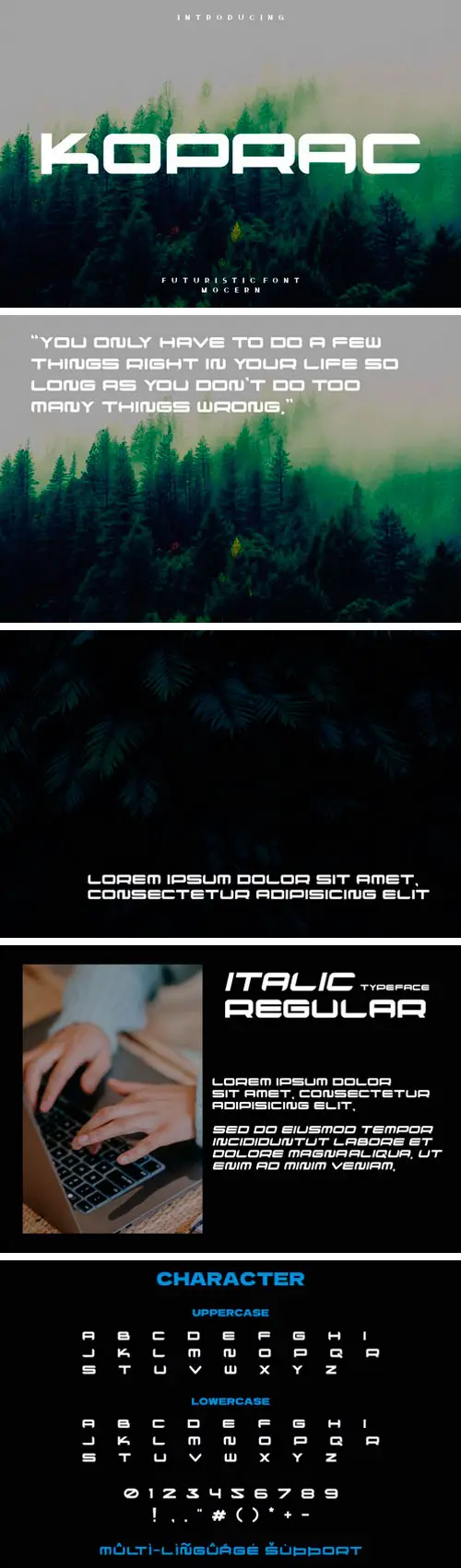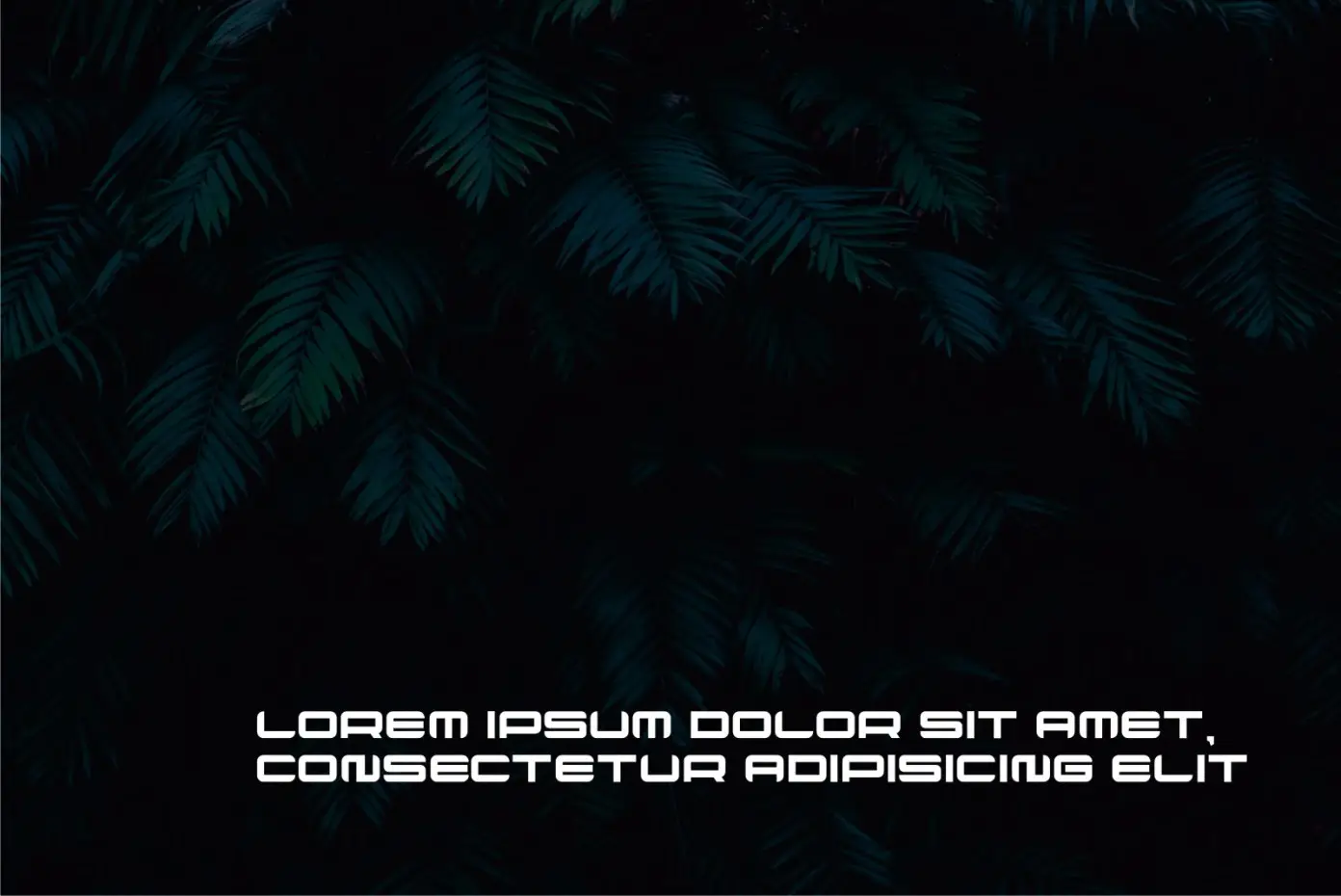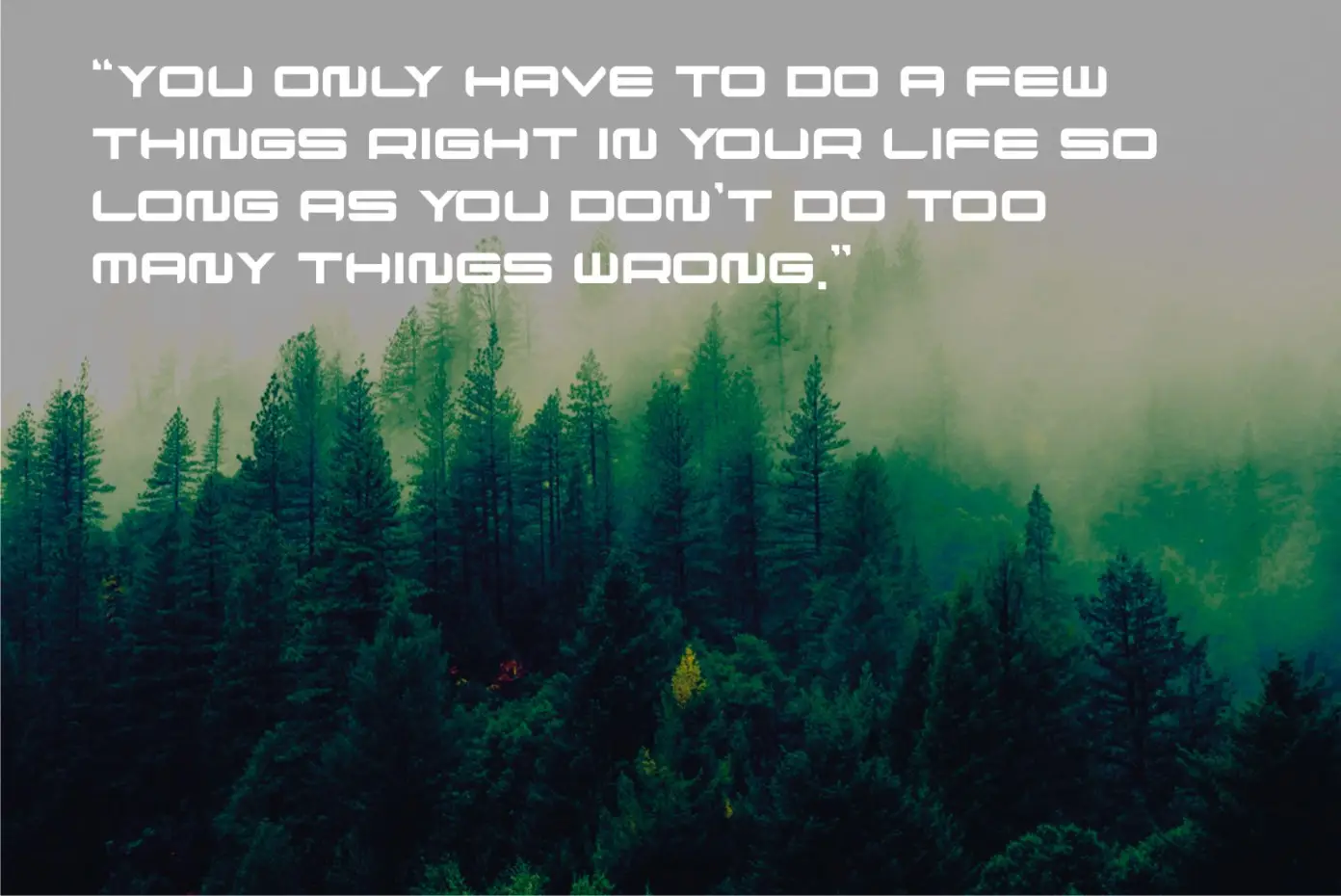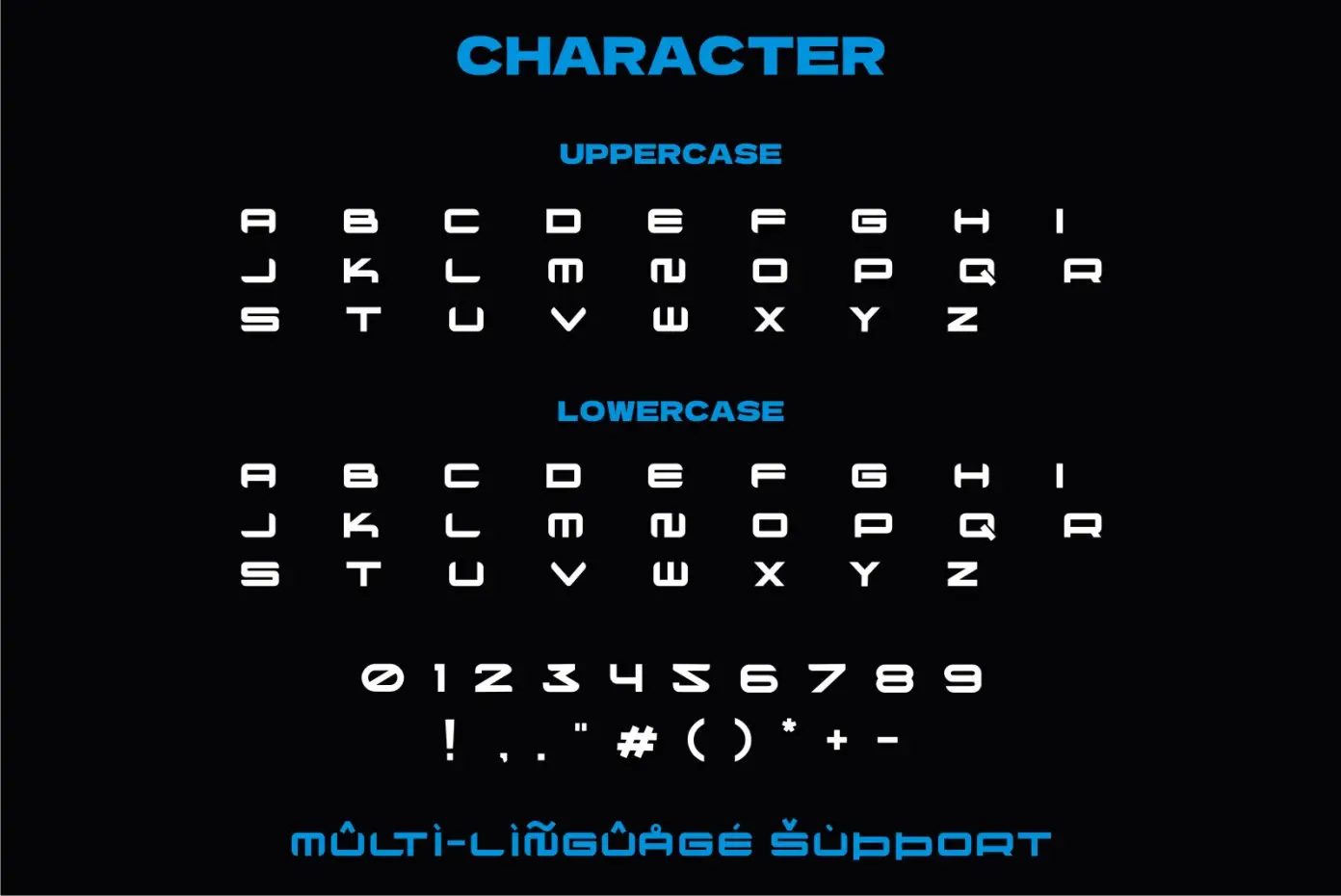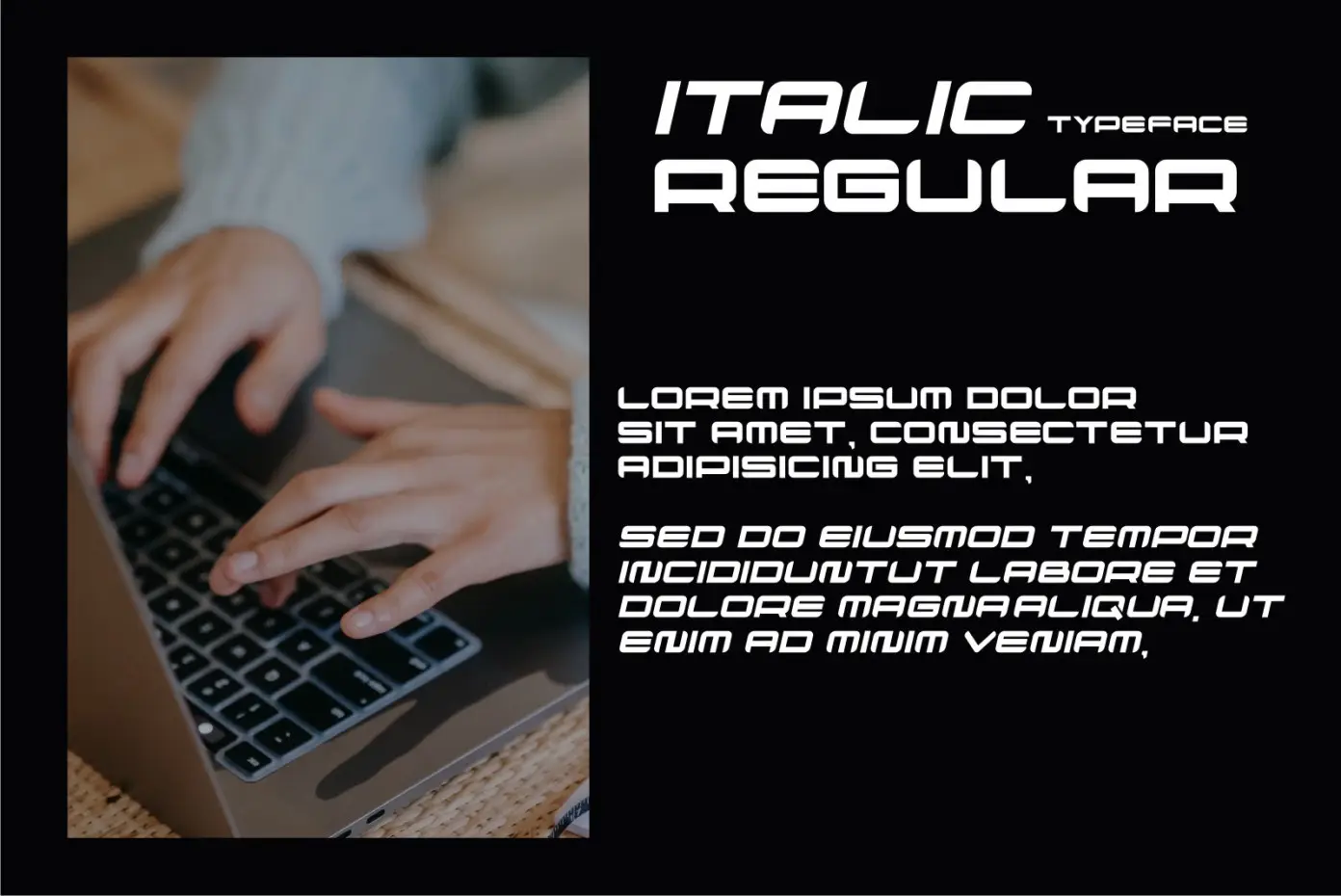
Koprac Display Font
The Koprac Display Font is a striking typeface designed to make a bold statement in any project. With its unique character shapes and eye-catching design, this font is perfect for branding, logos, and promotional materials.
• Distinctive display style
• Multiple weights for versatile use
Ideal for headlines, posters, and web design, the Koprac Display Font can elevate your visual content and create memorable impressions.